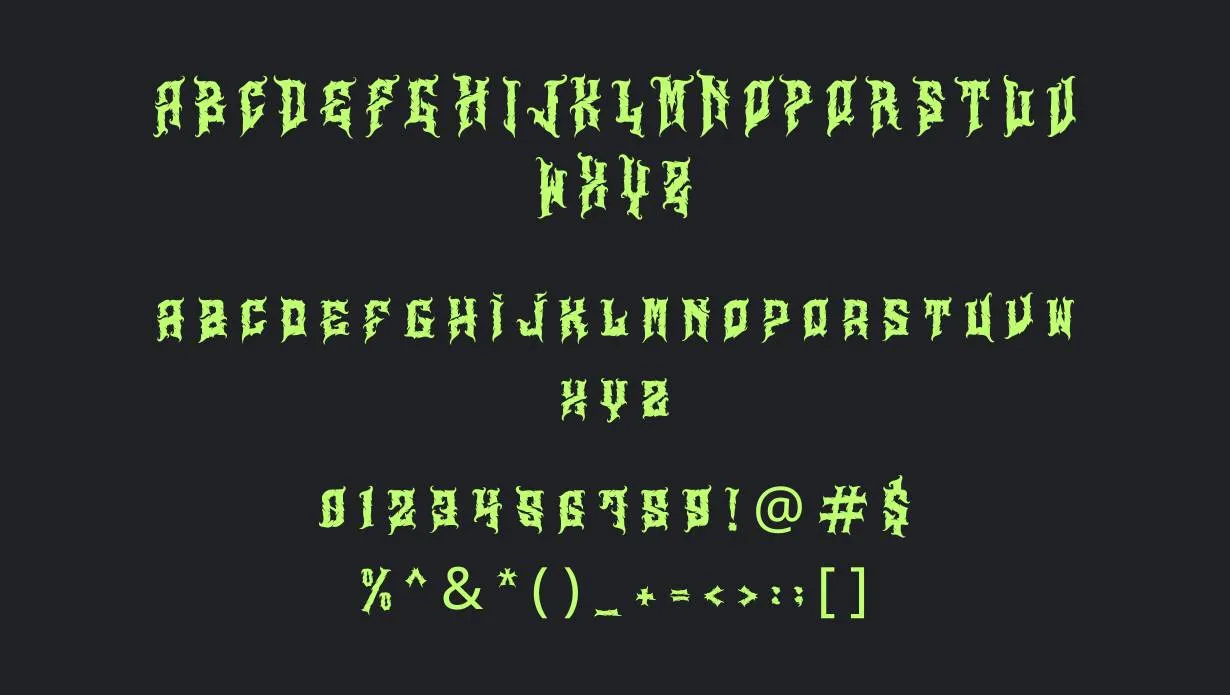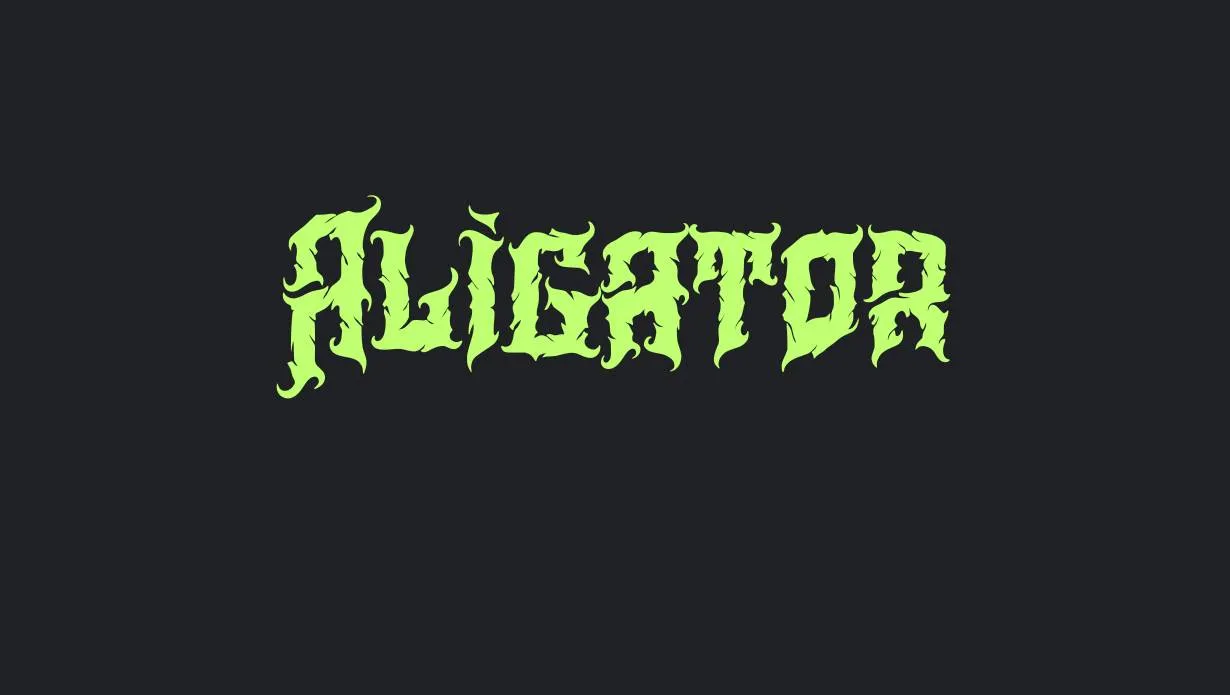
About Aligator Font
Aligator Font is a bold, stylized display typeface with sharp, angular letterforms that deliver a striking visual impact. Its distinctive shapes make it suitable for creative designs such as posters, logos, branding, and headlines where bold visual identity is needed. The font’s edgy aesthetic pairs well with modern, artistic, and expressive compositions. Aligator works across both digital and print media, enhancing designs with an aggressive yet crafted feel. Its unique structure helps it stand out in projects requiring strong typographic emphasis.